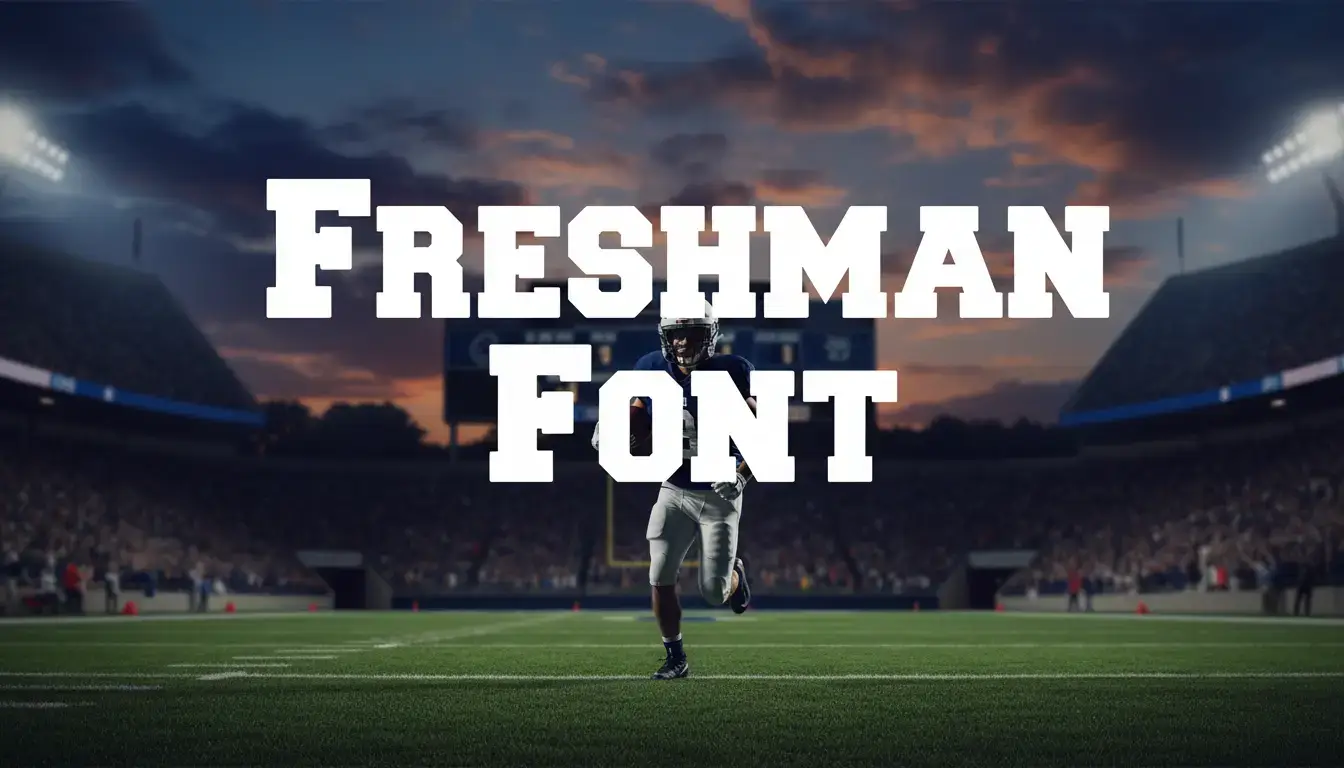
Freshman Font
Freshman
What You Can Type With Freshman
Freshman covers the full alphabet in upper and lowercase, plus all ten numbers, so you can set names, dates and prices without switching fonts. Common punctuation such as &, !, ? and # is included as well. It has 1 accented letters, but not the full set for Spanish or French, so test any non-English words first.
Where Freshman Works Best
Think of Freshman for posters, logos and eye-catching headlines. Use it for one standout word or headline and let simpler fonts handle the rest.
Does Freshman support accented letters?
Partly. Freshman has 1 accented letters, but not the complete set for Spanish, French or German. Type your words in the preview above to check before you use it.